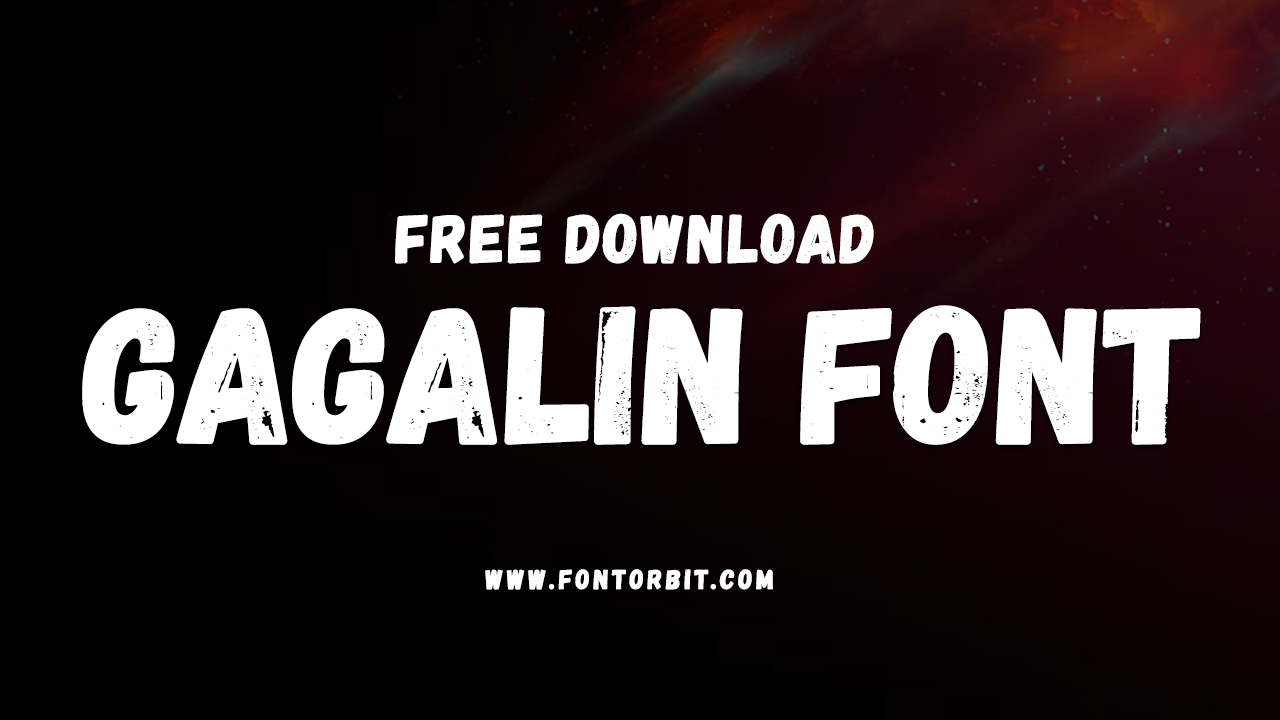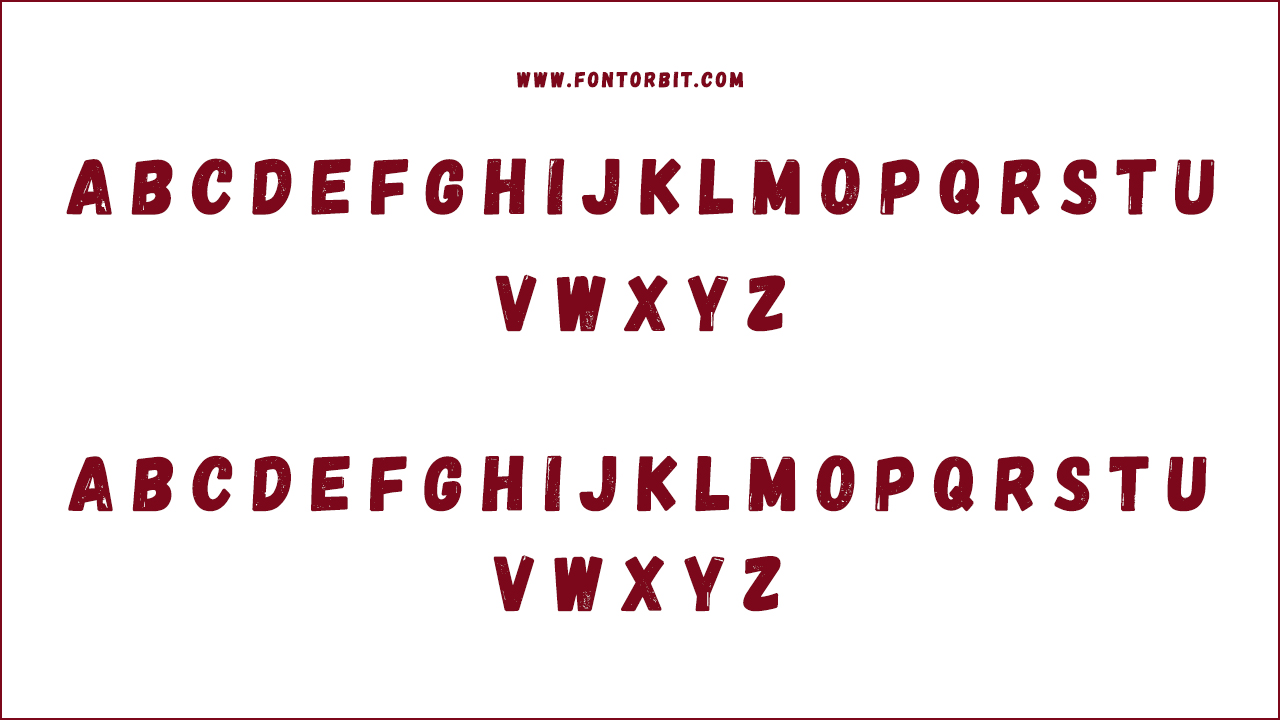
Gagalin Font is a bold and textured comic display typeface designed by Iordanis Passas from Athens, Greece. Known for its retro comic style with a rough, scratch effect, Gagalin adds a vintage touch to various design projects. This font is available for free for personal use.
Gagalin Font
Gagalin Font features a distinctive, legible style perfect for making a statement in design. This retro comic font, crafted with rough and scratch effects, includes:
Gagalin’s bold, retro comic style makes it an excellent choice for a variety of eye-catching and vintage-inspired design projects. Gagalin Font adds a dynamic, vintage comic look to projects, standing out with its retro touch and bold presence. It infuses character and flair into various media designs. Its unique texture and legibility are ideal for:
- Poster Design
- T-Shirts
- Apparel
- Flyers
- Hard Surface Graphics
Gagalin Font’s textured and bold style captures the essence of retro comic design. While it may not replicate any specific historical font exactly, it provides a distinctive, vintage touch suitable for various creative projects. Pair Gagalin with clean, modern fonts to balance its strong presence and enhance your design.
Due to its bold and textured style, Gagalin Font is best used for headings and display text. It may be less suitable for body text where readability and subtlety are needed.
Gagalin Font stands out with its rough, scratch effect and retro comic style, providing a unique vintage touch compared to more standard or clean comic fonts.
Gagalin is popular for poster design, apparel, branding, and flyers where a vintage comic aesthetic and bold presence are desired.
Gagalin’s design principles focus on boldness, legibility, and a retro comic aesthetic. The font features a textured, rough effect that adds character and visual interest.